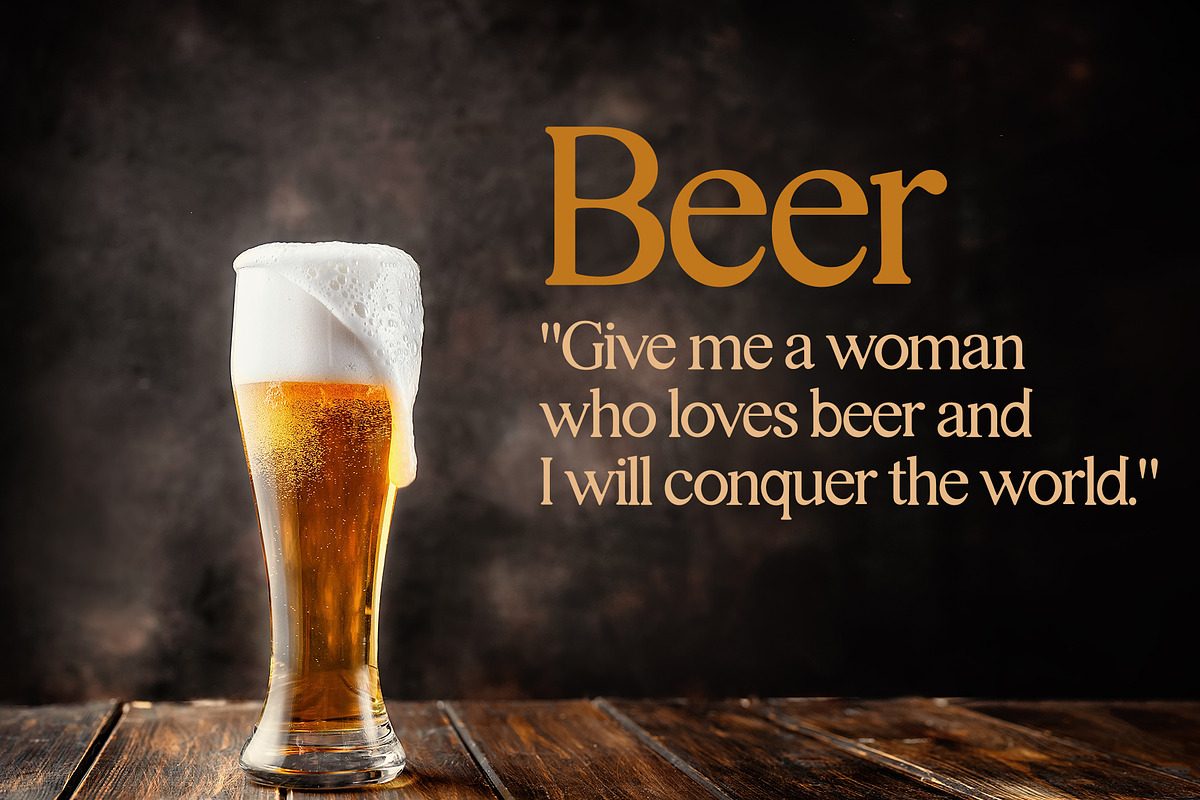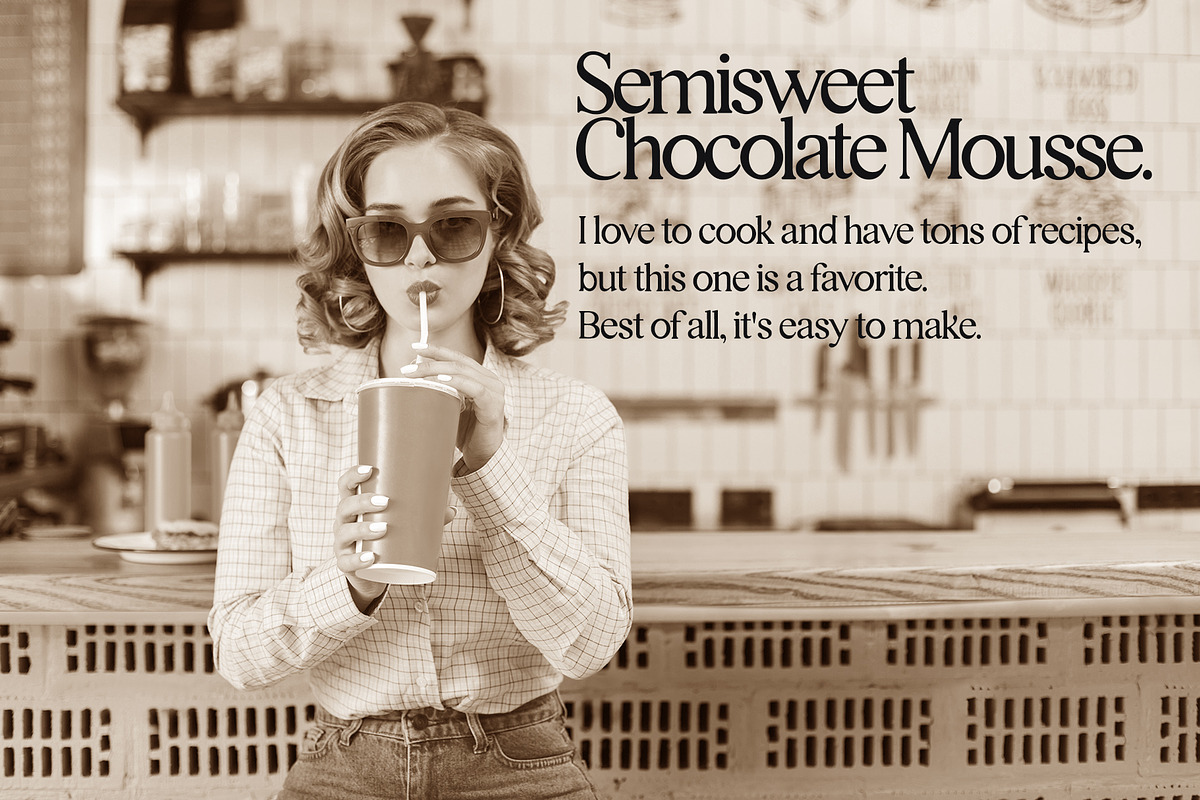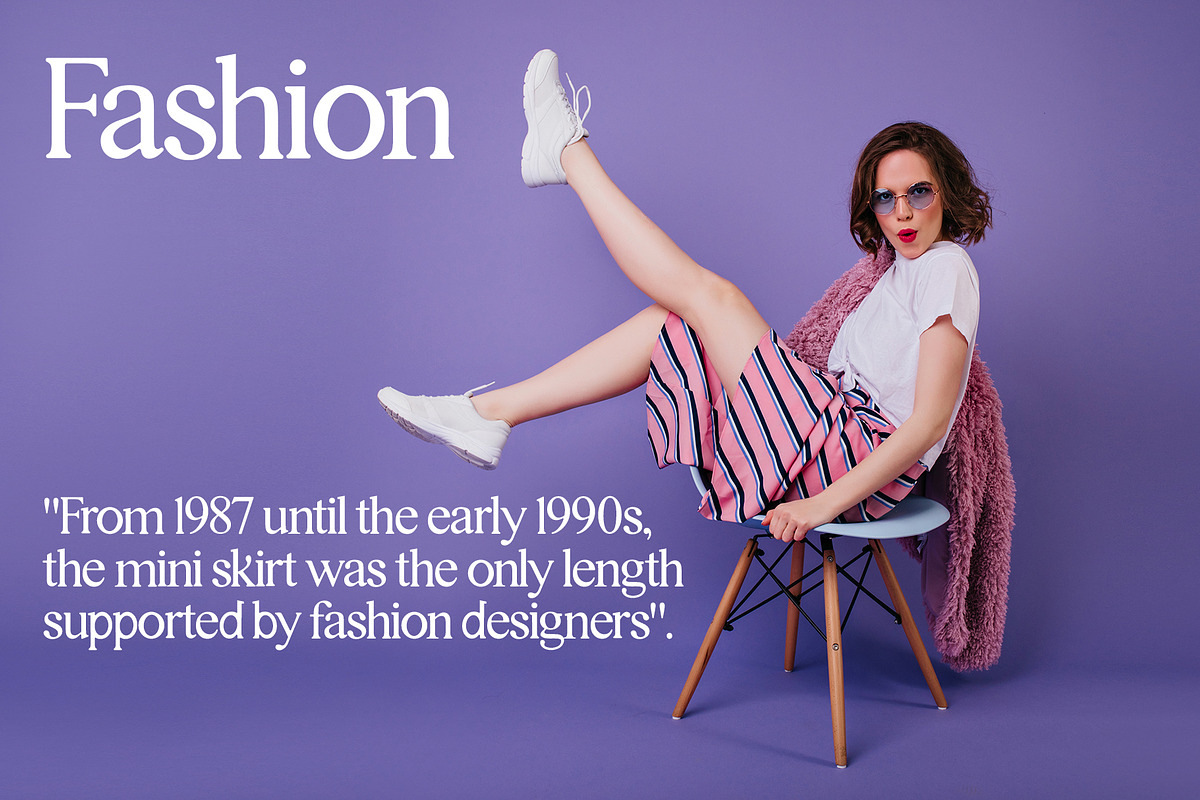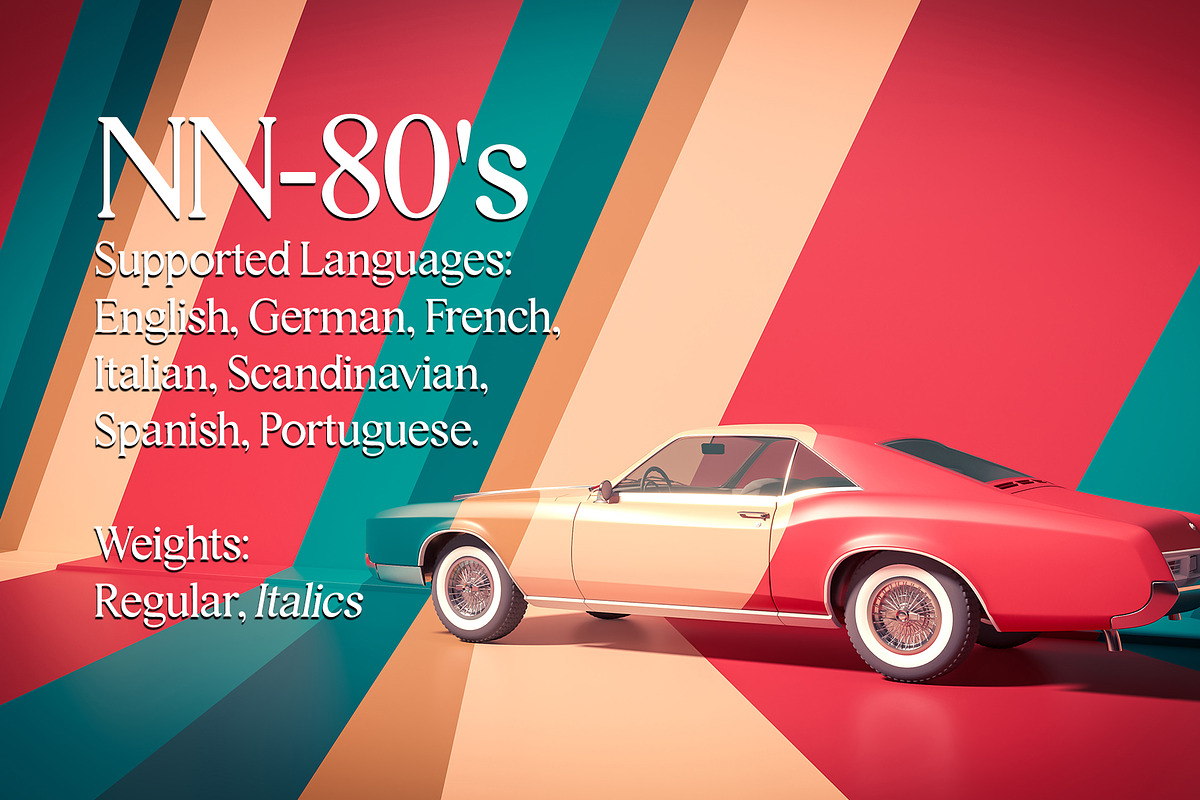
NN-80's
Welcome at 80's! NN-80's is a new serif font from the past. It comes in 2 weights: Regular and Italics. Supported languages: English, German, French, Italian, Scandinavian, Spanish, Portuguese. Thank you for your support so far!